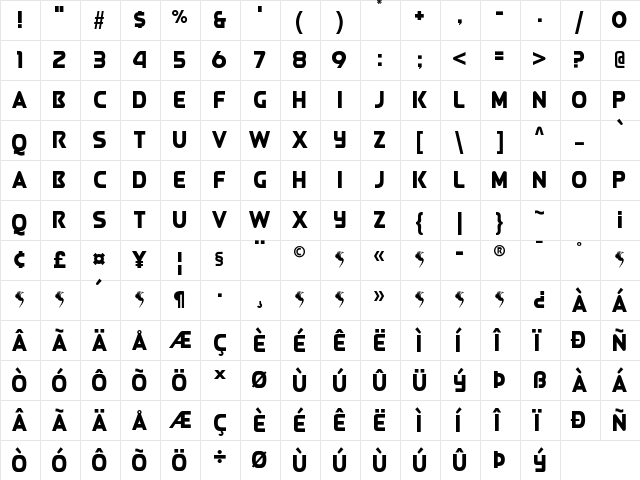
Queen of Camelot Regular
Design Context for Queen of Camelot Typeface
Queen of Camelot offers clean, dependable letterforms without strong stylistic allegiance, making it a practical choice for designers who need flexibility.